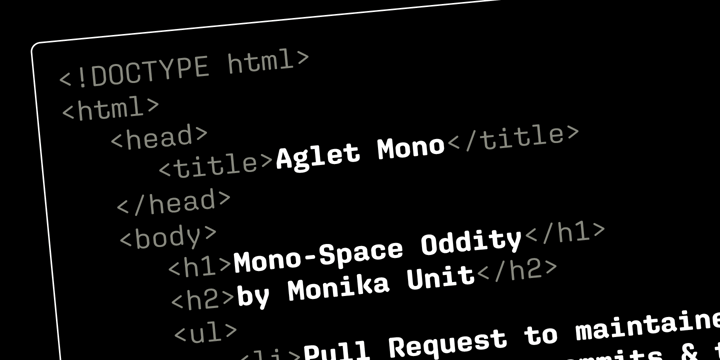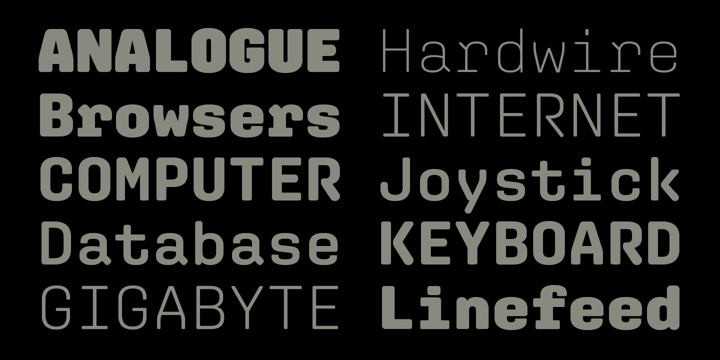
Aglet Mono
Aglet Mono by XYZ Type
Aglet Mono Font Family was designed by Jesse Ragan and published by XYZ Type. Aglet Mono contains 14 styles and family package options. More about this family
About Aglet Mono Font Family
Round architecture informs Aglet Mono, tempering its rigorous, fixed-width rhythm. Clever strategies offset the lopsided spatial artifacts produced by a monospaced design: the dented sides of A, V, W, v, and w compensate for the absence of kerning. Extroverted f, j, r, and t fill their allotted space with curious hooks, and a brazen g supports the calculated weirdness of some of the other glyphs.
Aglet Mono includes a set of useful symbols and comes in fourteen styles, like its relatives Aglet Slab and Aglet Sans. Minimal Extra Light resembles a wireframe of the characters, and the vocabulary of shapes grows increasingly diverse as the weights approach the bulky embrace of Ultra.
A display face at heart, Aglet Mono also translates well to the more intimate, routine demands of code. Its atmosphere is distinctly industrial and technical, but also unstudied and ad hoc. Aglet Mono is a typeface for people who make stuff, whether headlines or software.
Related families: Aglet Sans, Aglet Slab
Designers: Jesse Ragan